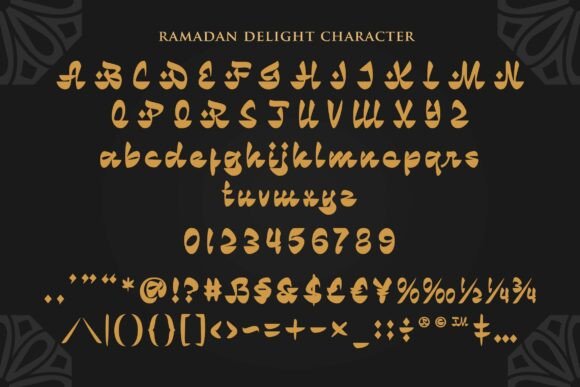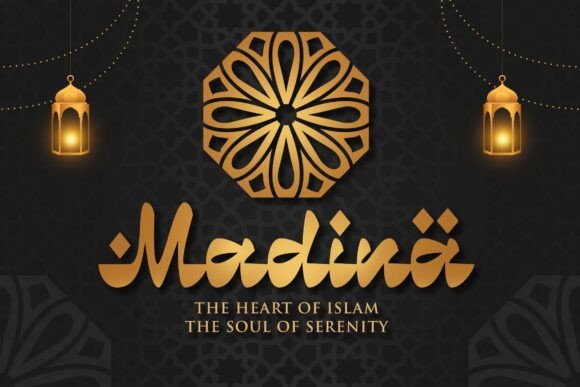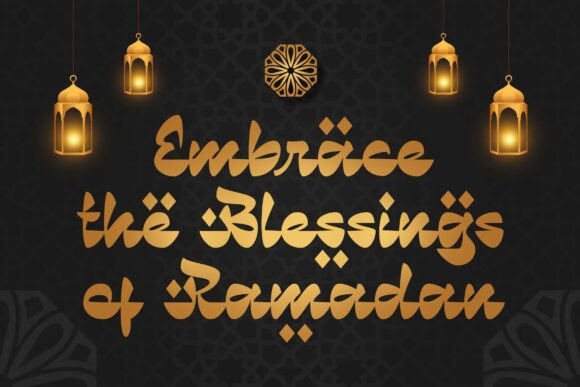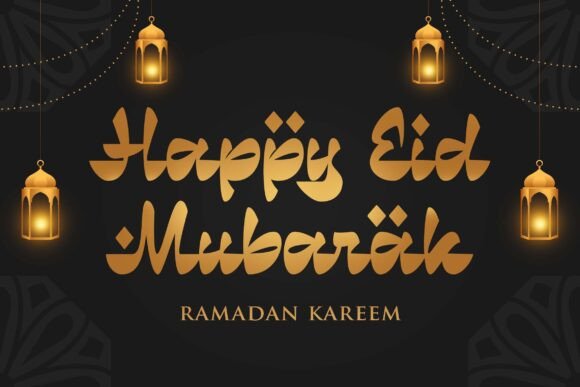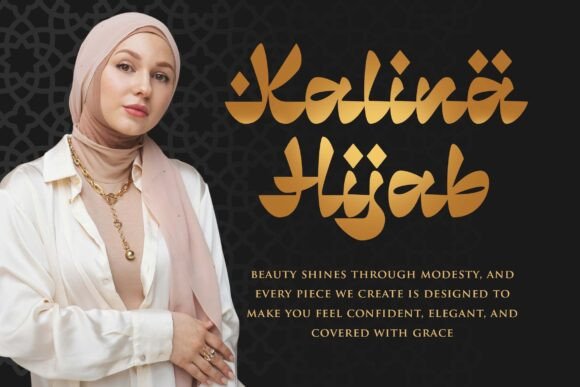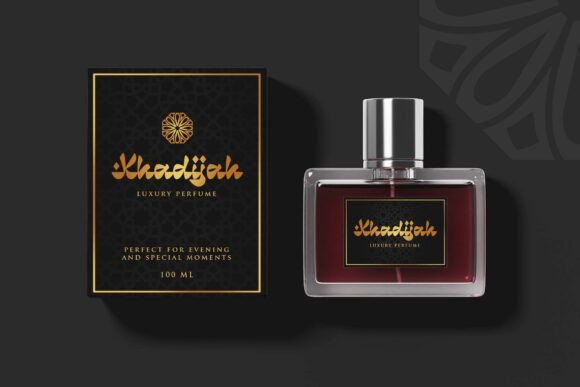
Introduction to Ramadan Delight Font
As a designer, have you ever felt the thrill of creating something special for a client or a personal project? Maybe it’s the excitement of seeing your design come to life, or the satisfaction of knowing you’ve helped bring someone’s vision to reality. Whatever it is, we’re here to share something that might just spark that creative spark within you – the Ramadan Delight Font.
Developed by the talented team at Blankids Studio, this beautiful Arabic display font is designed to elevate your professional projects to the next level. With its high-quality design and transparent background, it’s the perfect addition to any design resource. Whether you’re working on a branding project, creating a stunning poster, or designing product packaging, the Ramadan Delight Font is sure to impress.
Key Features of Ramadan Delight Font
- Unique Islamic-inspired design with intricate patterns and calligraphy, perfect for creative projects and design resources.
- High-quality font with transparent background, ideal for use on digital and print materials.
- Size: The font includes a range of font sizes and weights, from light to bold, to accommodate various design needs.
- Perfect for use in Ramadan-themed projects, Islamic art, and cultural events, adding a touch of elegance and sophistication.
Honest Review: Ramadan Delight Font
I recently had the chance to work with the Ramadan Delight Font, and I must say it’s been a pleasant experience. The font is a beautiful addition to any design project, especially those with a Middle Eastern or Islamic theme.
Here are some things that work well about the Ramadan Delight Font:
- ✨ High quality design that’s perfect for creative projects
- ✨ Supports a transparent background, making it easy to layer over other elements
- ⚠️ Limited character set, which may not be suitable for longer texts
Overall, I’m impressed with the Ramadan Delight Font. It’s a great resource for designers working on creative projects, especially those related to Ramadan or Islamic culture. With a little creativity, this font can really elevate your designs and add a unique touch.
Tips for Getting the Most Out of Ramadan Delight Font
To get the most out of the Ramadan Delight Font, try combining it with other design elements such as graphics and textures. You can also experiment with different font sizes and colors to create a unique look.
The Ramadan Delight Font is ideal for creating designs for Ramadan and Eid celebrations, such as invitations, banners, and social media graphics. It’s also great for creating Islamic-inspired designs for your creative project.